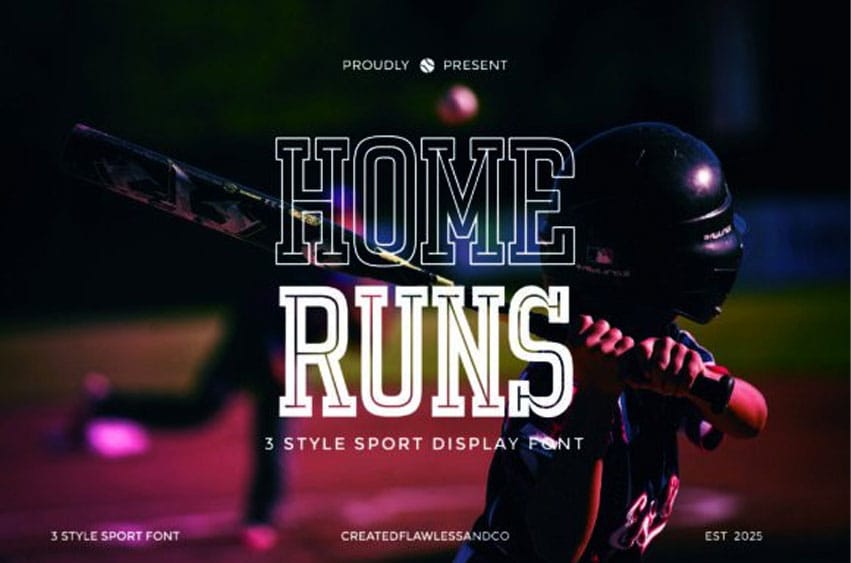
Home Runs Font is a dynamic sport display font that blends bold athletic energy with clean sans serif structure. Featuring three powerful styles, this typeface is designed to capture the adrenaline of competitive sports while maintaining clarity and versatility.
Perfect for team branding, jerseys, posters, scoreboards, and sports-themed marketing, Home Runs delivers a strong presence with modern appeal. Its sharp lines and athletic vibe make it ideal for both print and digital game-day designs.